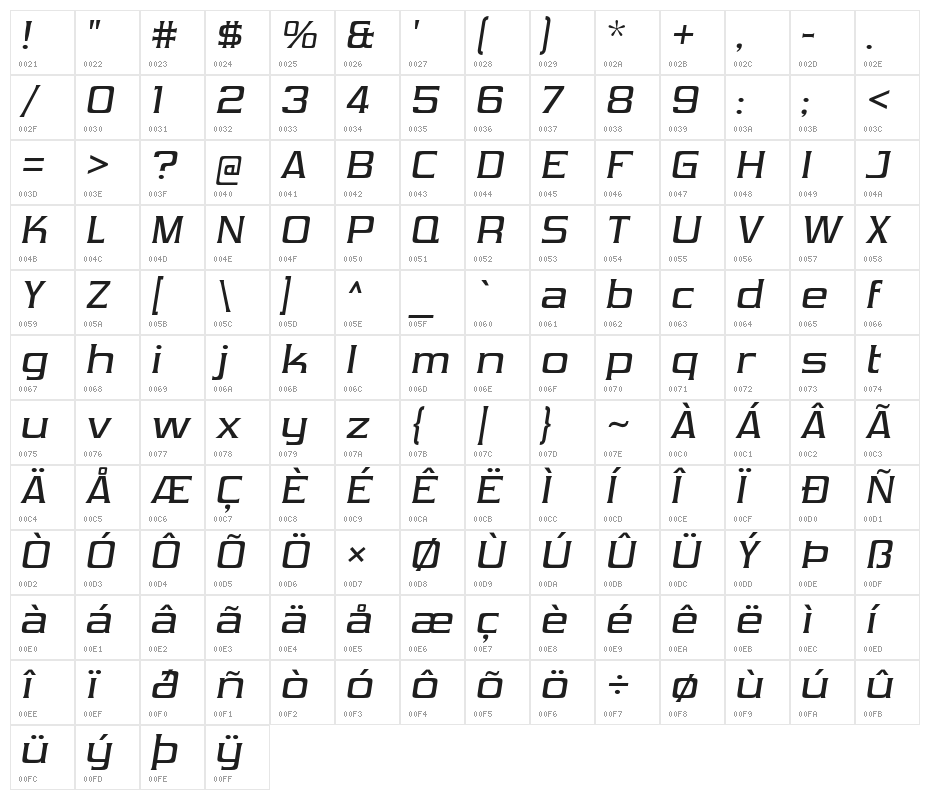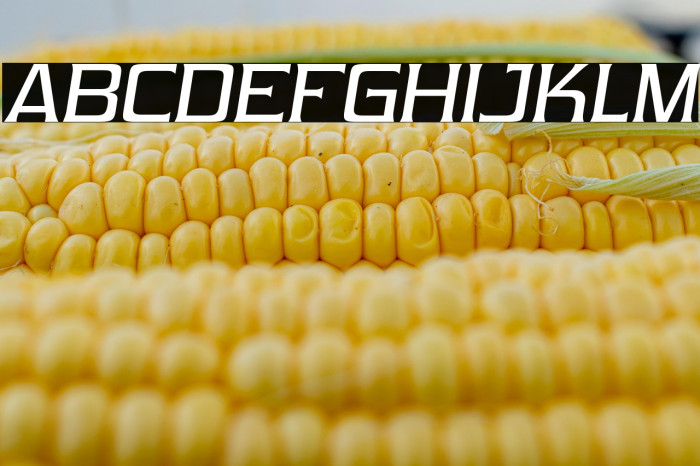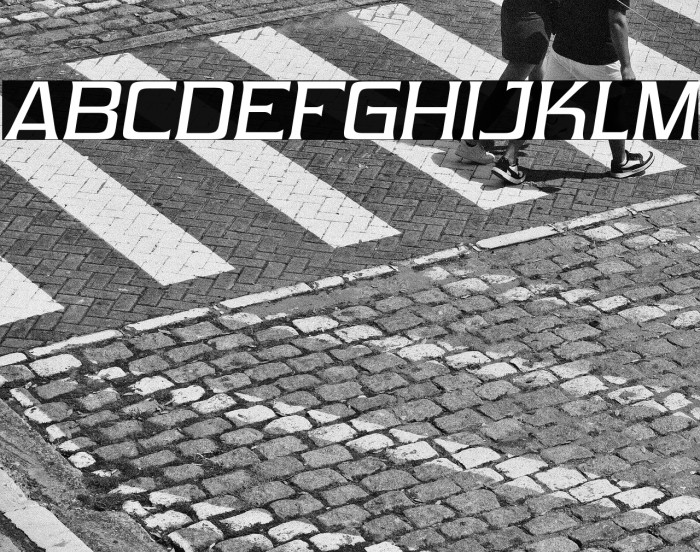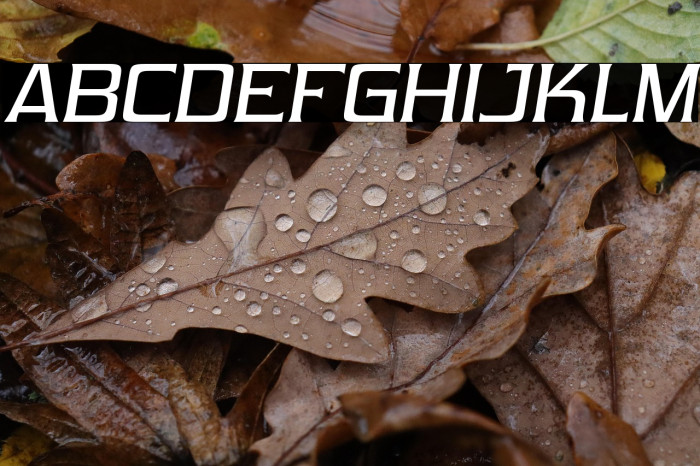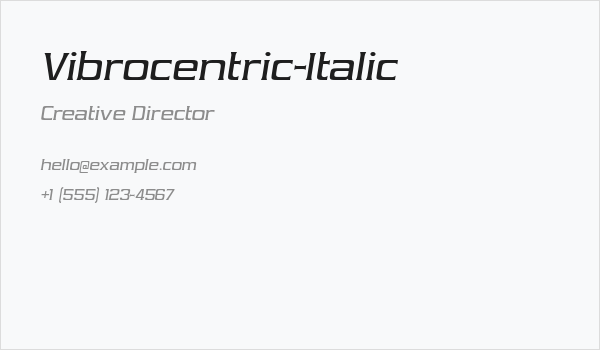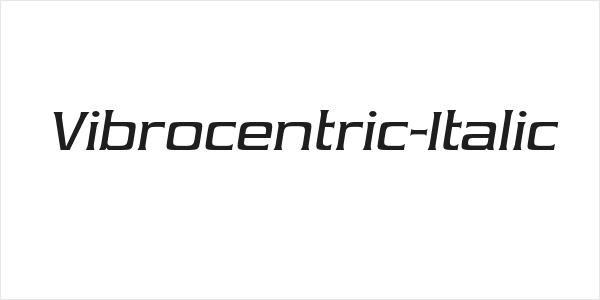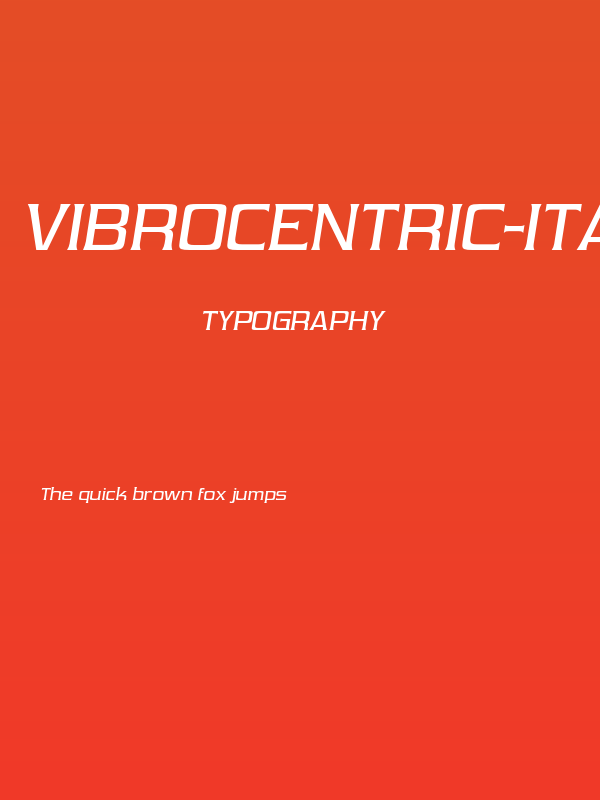
Vibrocentric-Italic Font
Vibrocentric-Italic Description
This font features a sleek, italicized design with a modern and dynamic appearance. The characters are slightly slanted, giving a sense of motion and energy. The strokes are consistent in thickness, providing a uniform look across all letters and numbers. The design is clean and minimalistic, making it suitable for contemporary projects. The font includes a full set of uppercase and lowercase letters, numerals, and a variety of special characters. Its geometric shapes and sharp angles contribute to its futuristic and technical feel.
Use CaseLogos, Headlines, Branding
Proposed ProjectsIdeal for technology branding, sports team logos, and modern advertising campaigns.